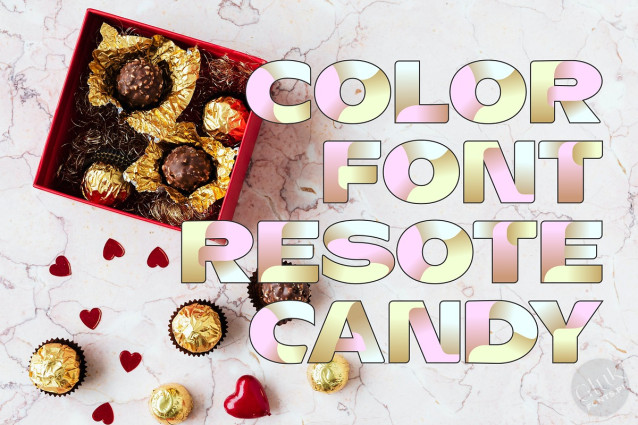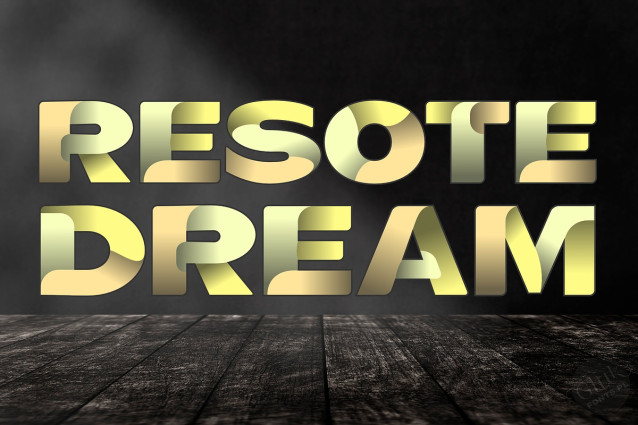
ResotEDream Font
ResotEDream, Winter and Candy fonts. Fully vector colored letters allow you to create headlines, banners or advertising slogans at any size. Built-in alternate characters and automatic ligatures compensate for differences in spacing. The regular OTF ResotE (All Caps) font is included in the package, allowing you to create text at smaller sizes in the style of the ResotE family.